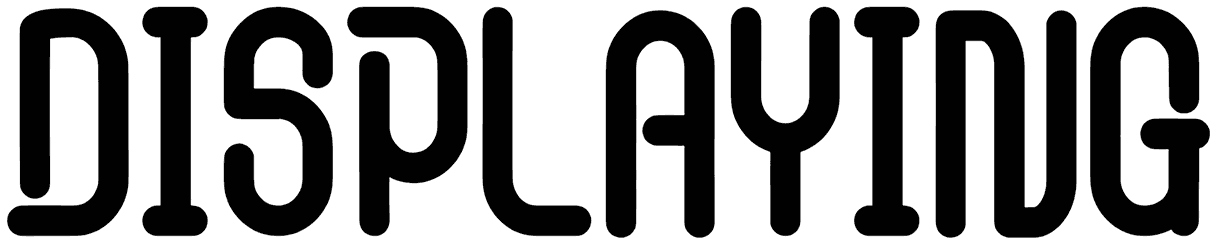
Displaying Font
Displaying can set a suitable tone for brands that are looking to create an intimate relationship. This sans serif font can help the viewer to process information and receive your message in a short time due to its soft and smooth curves.
So if you’re implementing a challenging project where simplicity is the first word, you can create your brand ideas with this powerful tool. This rounded font is a good option for creating logos, computer games, and prints on T-shirts.